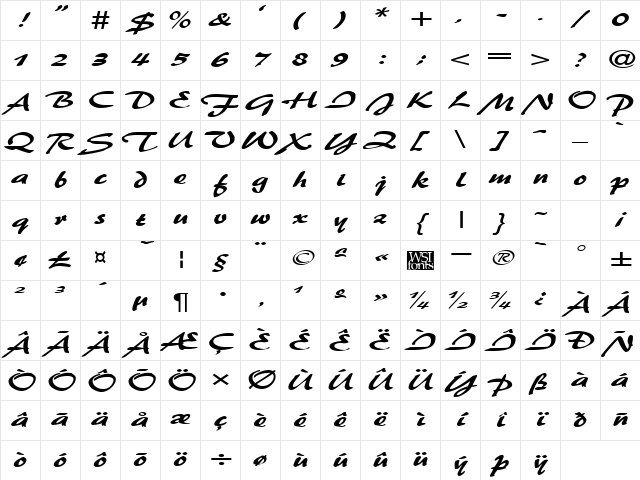
BrushFlashExpanded Regular
Design Context for BrushFlashExpanded
BrushFlashExpanded flows with the natural rhythm of handwritten lettering, making it ideal for designs that call for warmth and personal expression.
Font Pairing: Combine BrushFlashExpanded with a simple geometric sans for maximum contrast - the tension between flowing curves and clean structure is a classic typographic pairing.
Pro Tip: Use BrushFlashExpanded for short runs of text - names, titles, or taglines. Extended body copy in script faces tires the eye quickly.